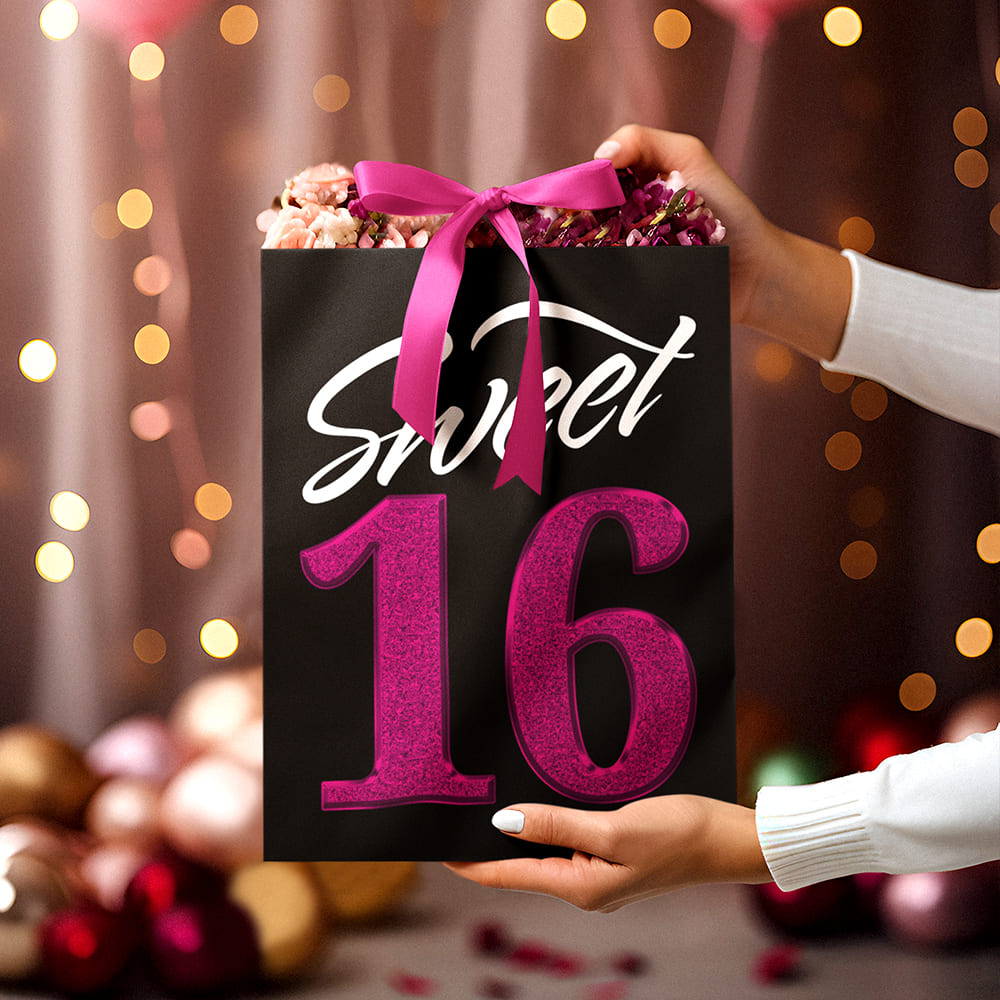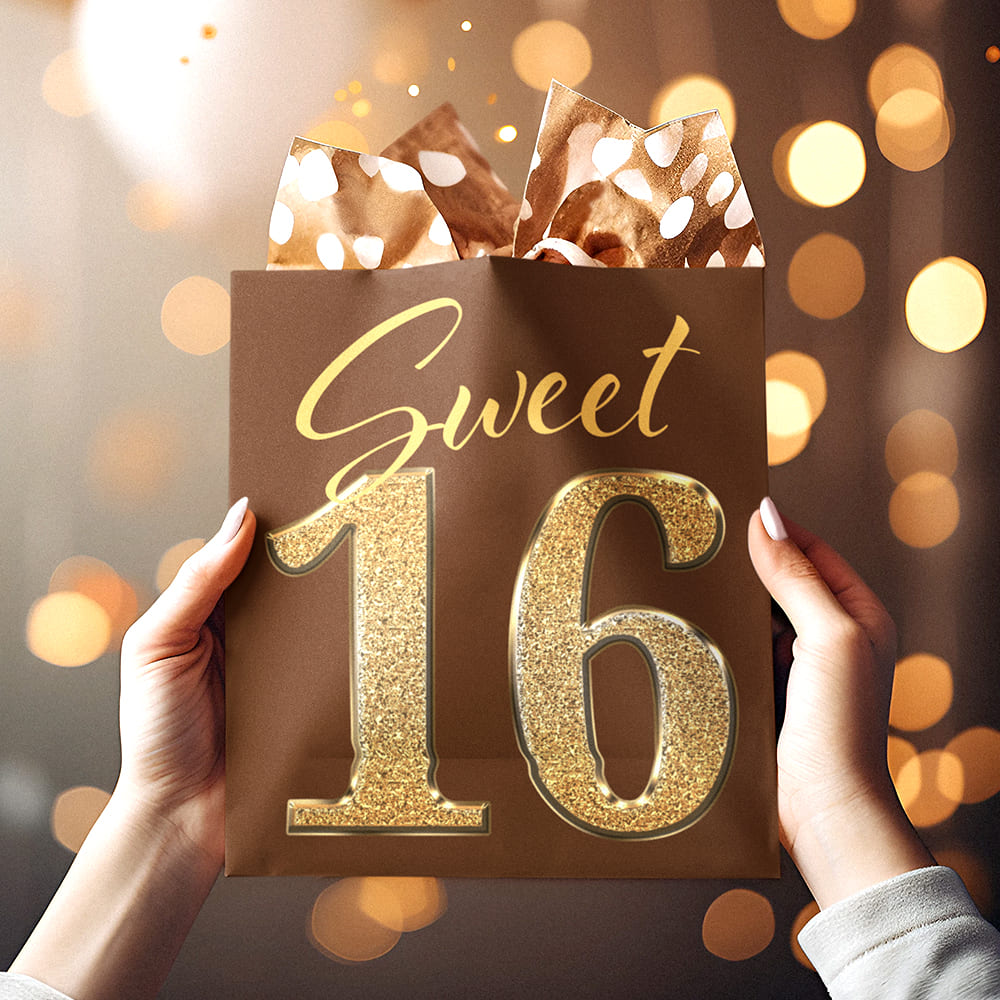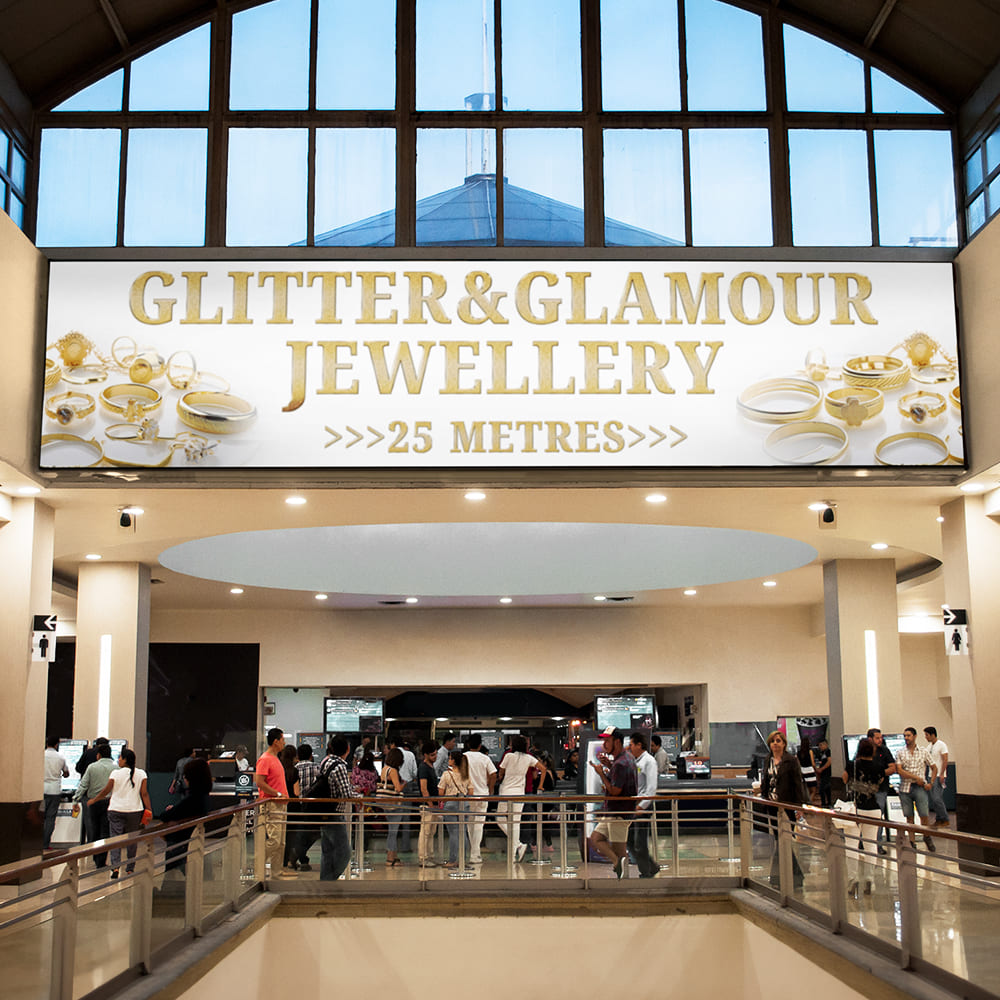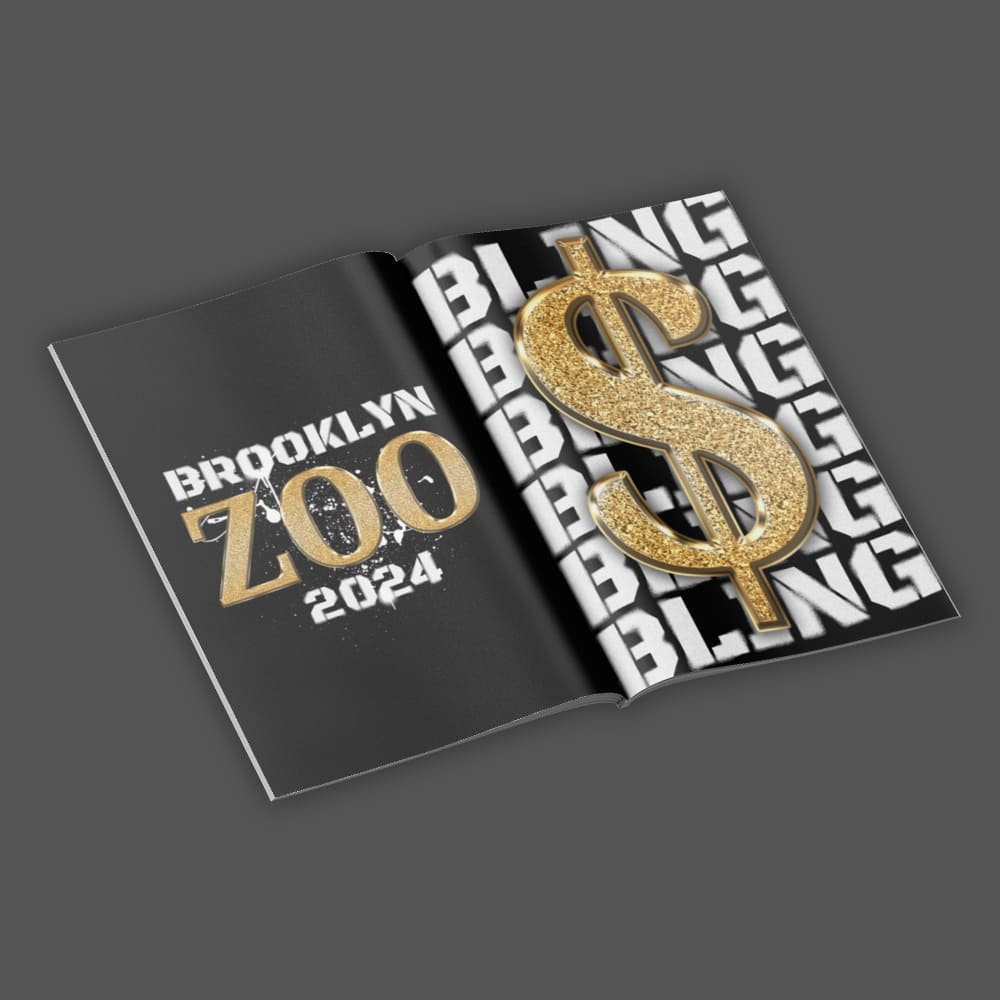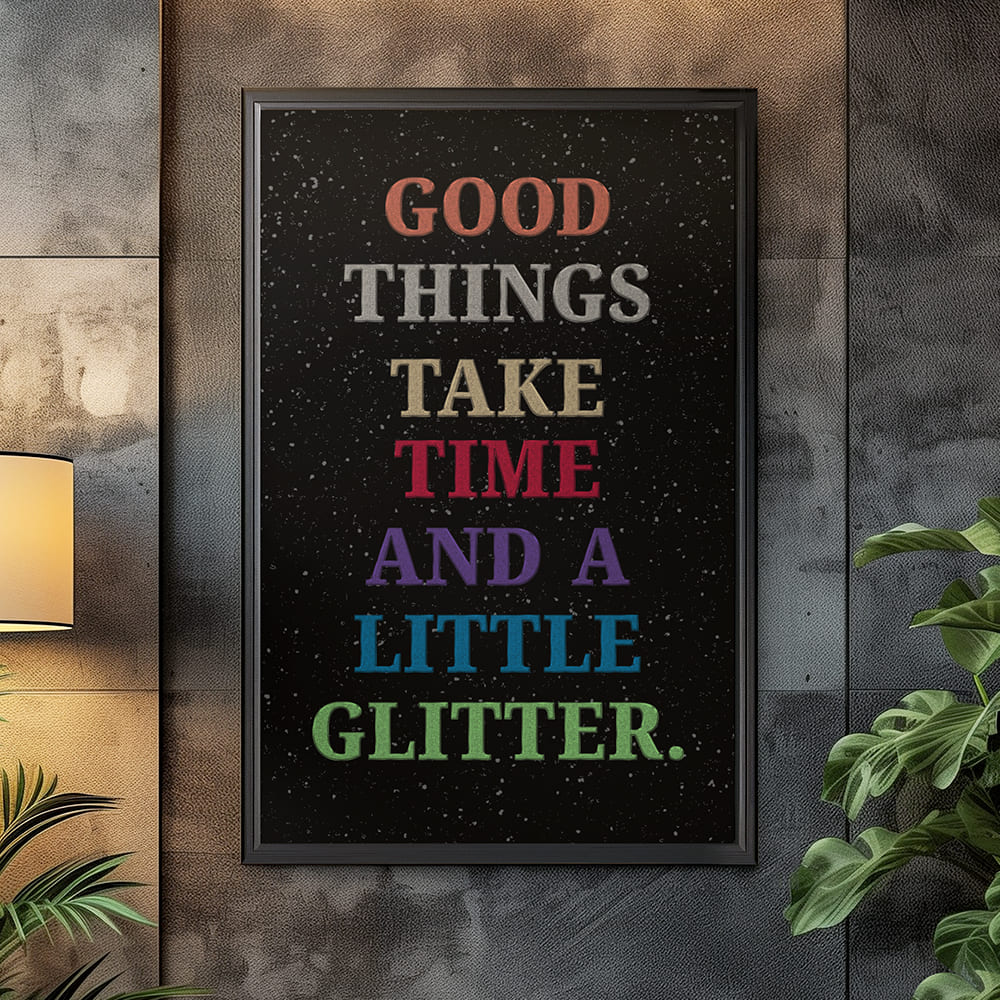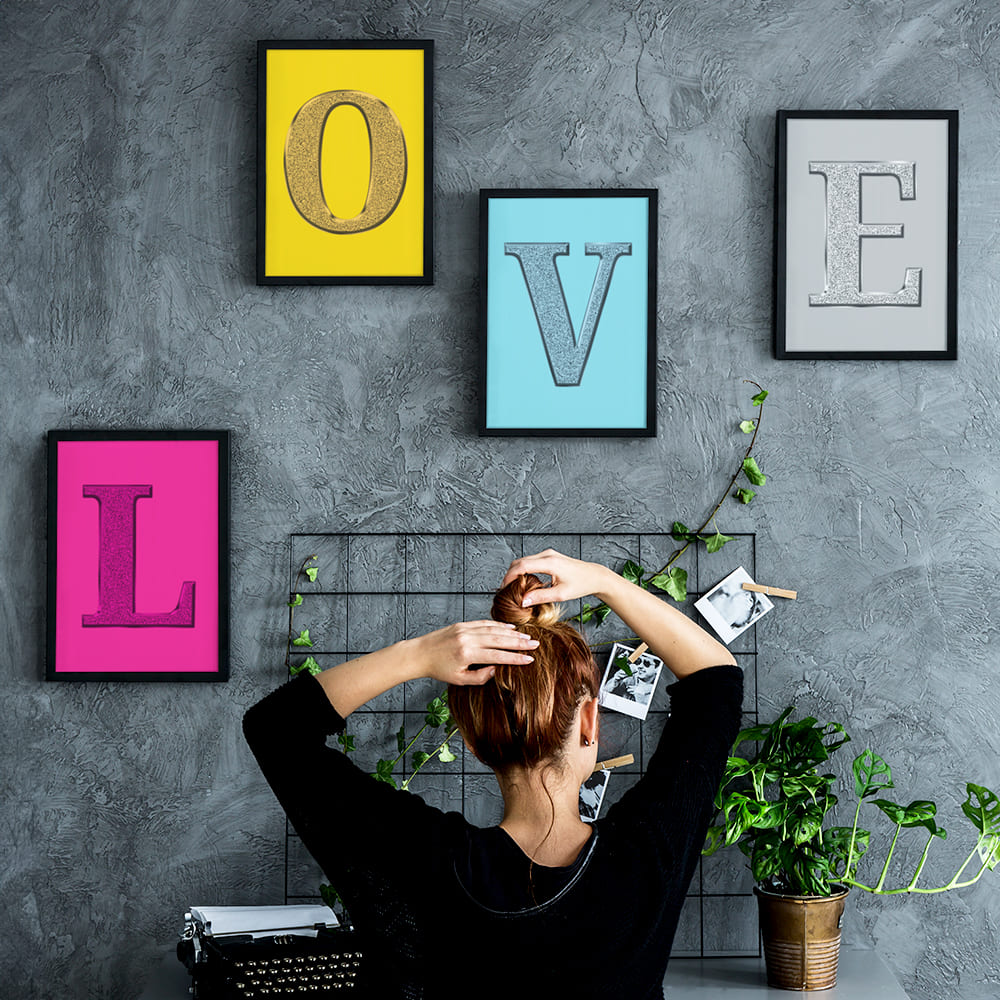
Glitter&Glamour Font
Timeless, Elegant, Unforgettable β¨π¬π
When pure Hollywood flair meets dazzling luxury, the result is a typeface as sophisticated as it gets β the Glitter & Glamour Font! Inspired by the golden age of cinema, by Marilyn Monroe, Grace Kelly, and Brigitte Bardot, this font brings the radiance of the silver screen straight into your design.
Why Choose the Glitter & Glamour Font?
πΉ Pure elegance & style β A font with refined sparkle, perfect for high-end magazines, luxury branding, and iconic logos.
πΉ Hollywood glamour at its finest β Inspired by the timeless aesthetics of the 50s and 60s, when film stars enchanted the world and luxury was a lifestyle.
πΉ Perfect for high-class designs β Ideal for fashion, beauty, lifestyle magazines, perfume labels, VIP events, and anything that radiates pure exclusivity.
πΉ Shines in every color β Whether in golden shimmer, silver brilliance, sparkling rose gold, or sleek pink, this font adapts to every luxurious vision.
Make Your Design the Star!
With the Glitter & Glamour Font, every word becomes a flawless masterpiece β radiant, sophisticated, and truly unforgettable. This font is for those who donβt just want to shine β they want to dazzle!